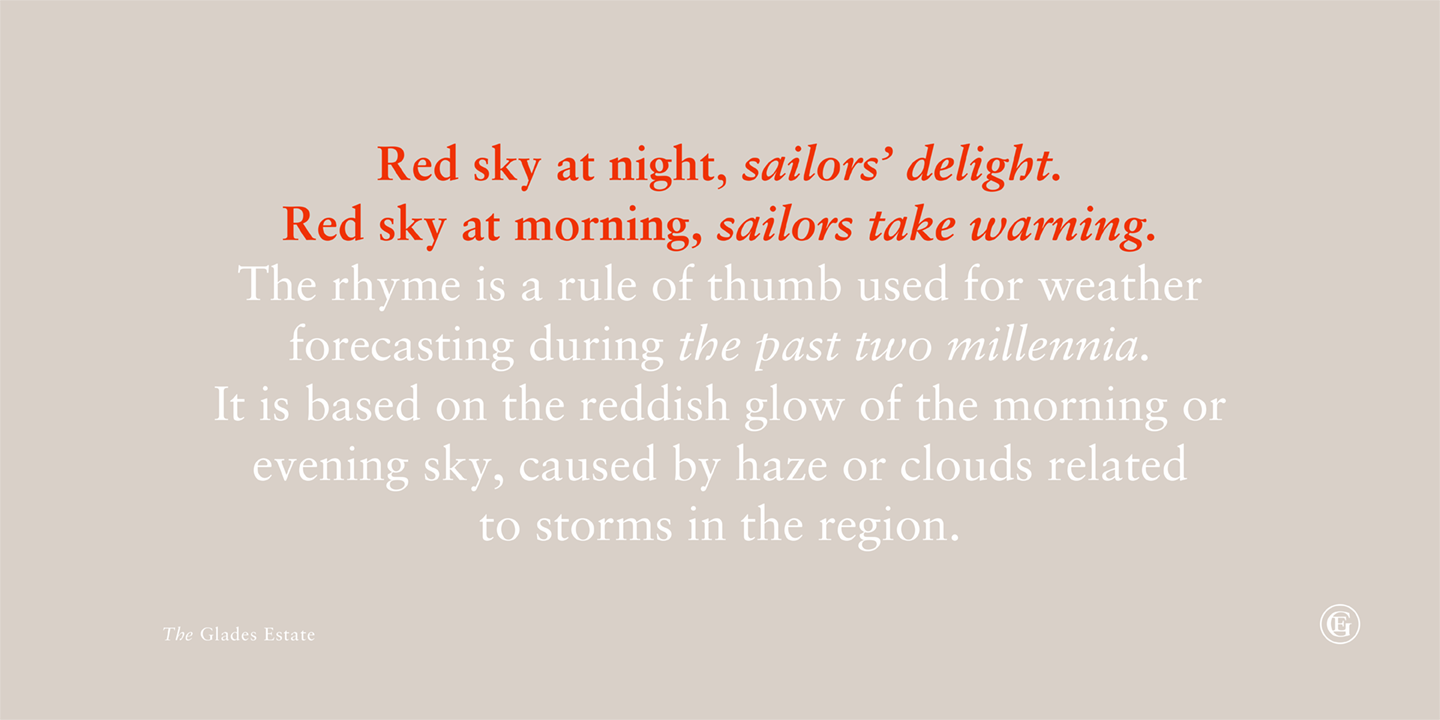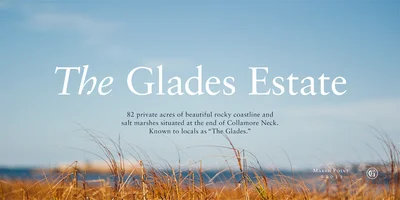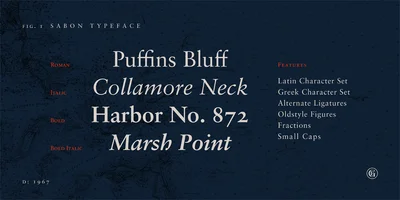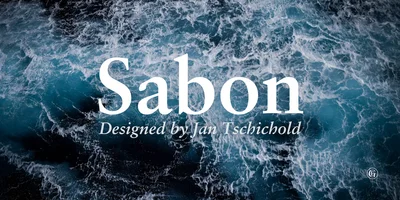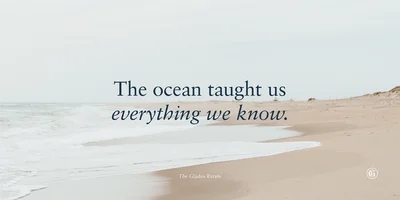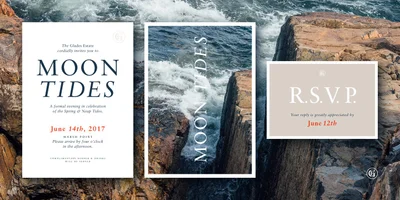
Blanco vs Sabon
Blanco and Sabon are both serif typefaces sharing a elegant foundation. Where Blanco leans editorial, modern, Sabon brings old style, retro. Compare which suits your Editorial project.
Design overlap:33%
| Feature | Blanco | Sabon |
| Source | Milieu Grotesque | Linotype |
Recommended: Blanco
- editorial, modern design character
- Suited for Magazines and Web
- From milieu-grotesque
Consider: Sabon
- old style, retro design character
- Suited for Luxury and Academic
- From linotype